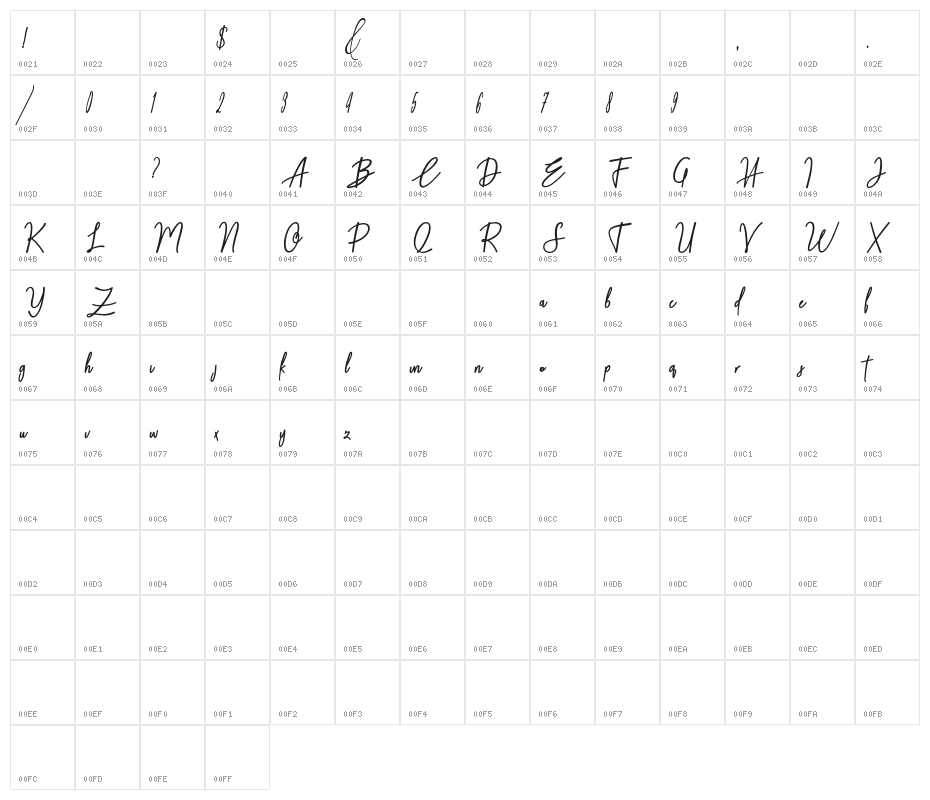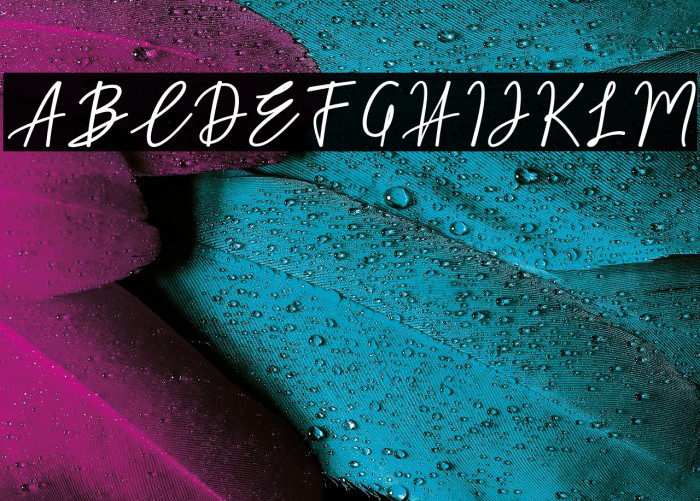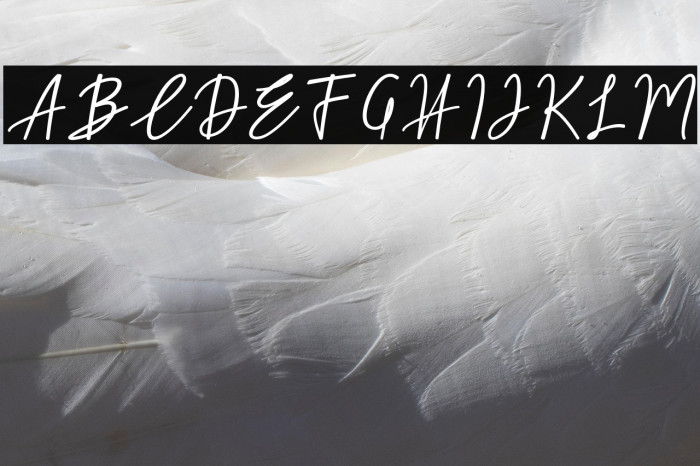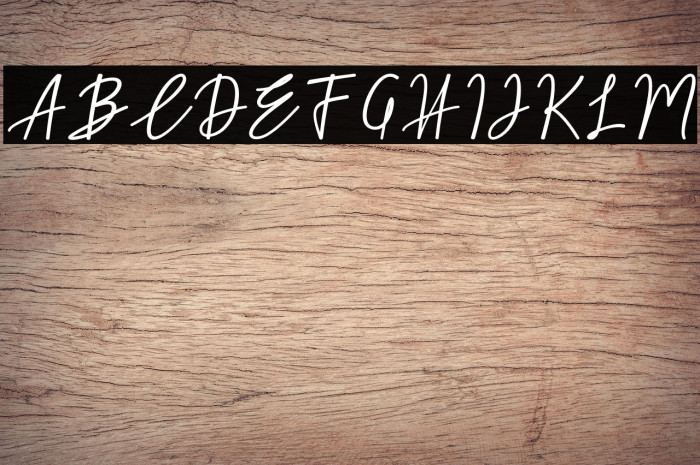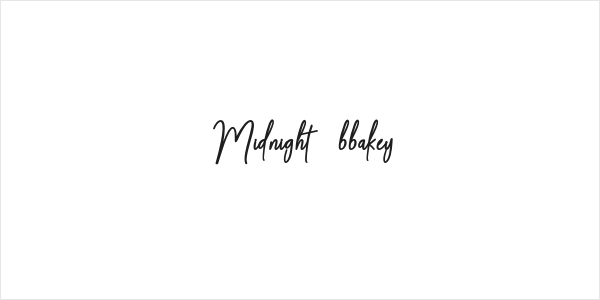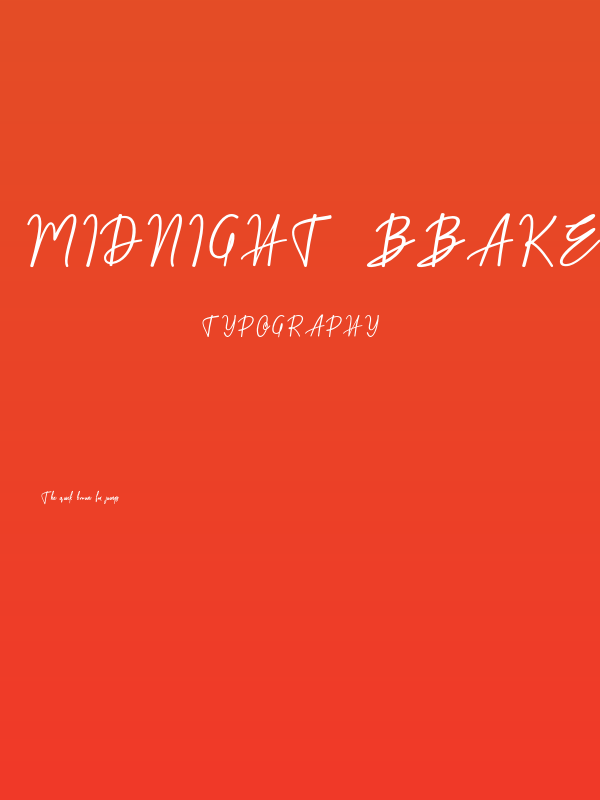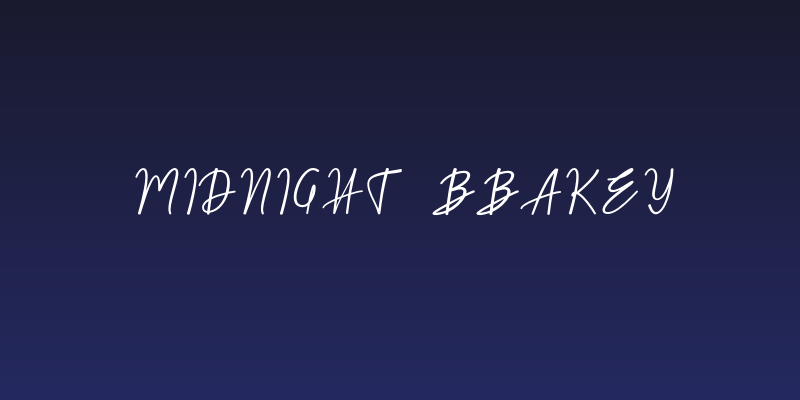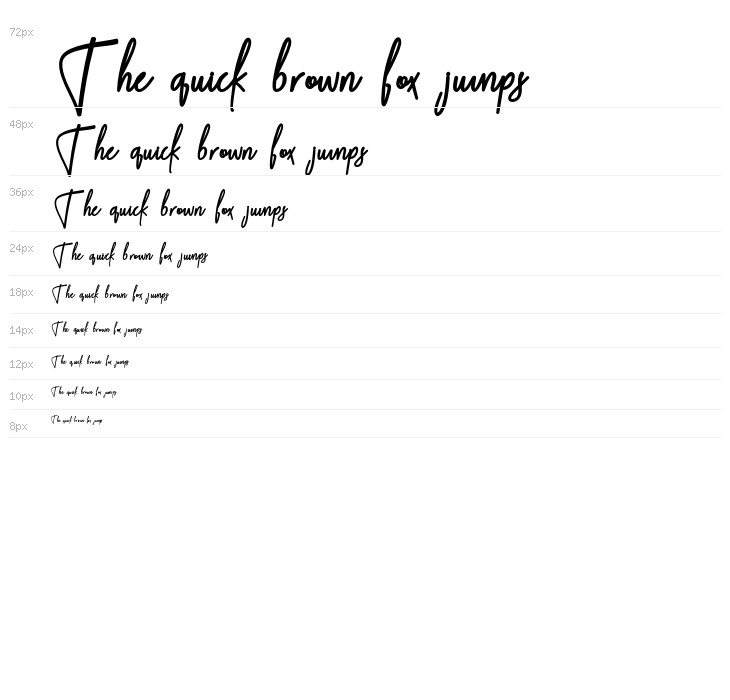
Midnight-bbakey Font
Midnight-bbakey Description
This font features a dynamic and flowing script style, characterized by its elegant and cursive letterforms. The uppercase letters are slightly more upright and formal, while the lowercase letters exhibit a more casual and connected style, giving it a handwritten appearance. The numerals are consistent with the script style, maintaining a fluid and cohesive look. Special characters are integrated seamlessly, enhancing the font's versatility. The overall design is both stylish and approachable, making it suitable for a variety of creative applications.